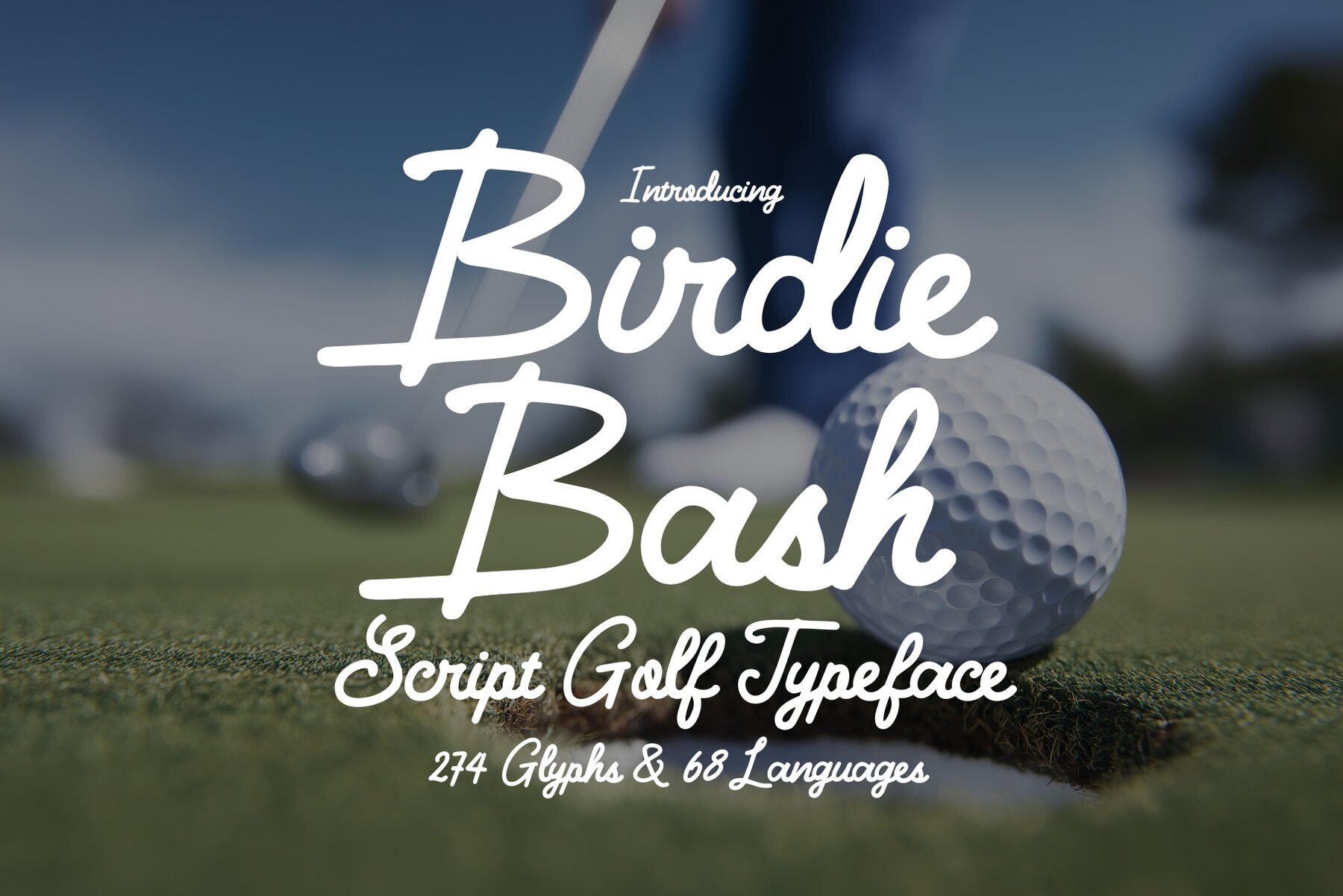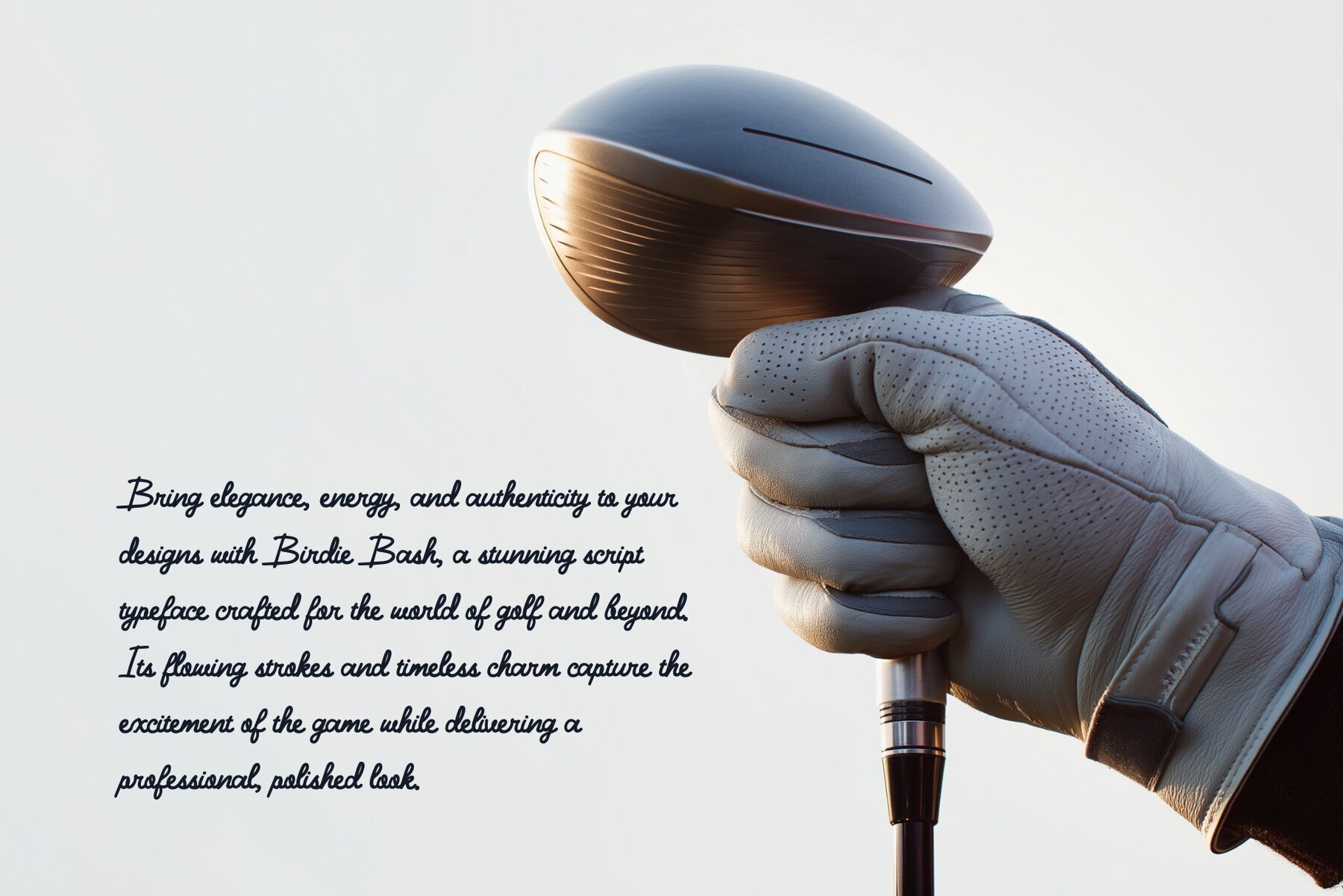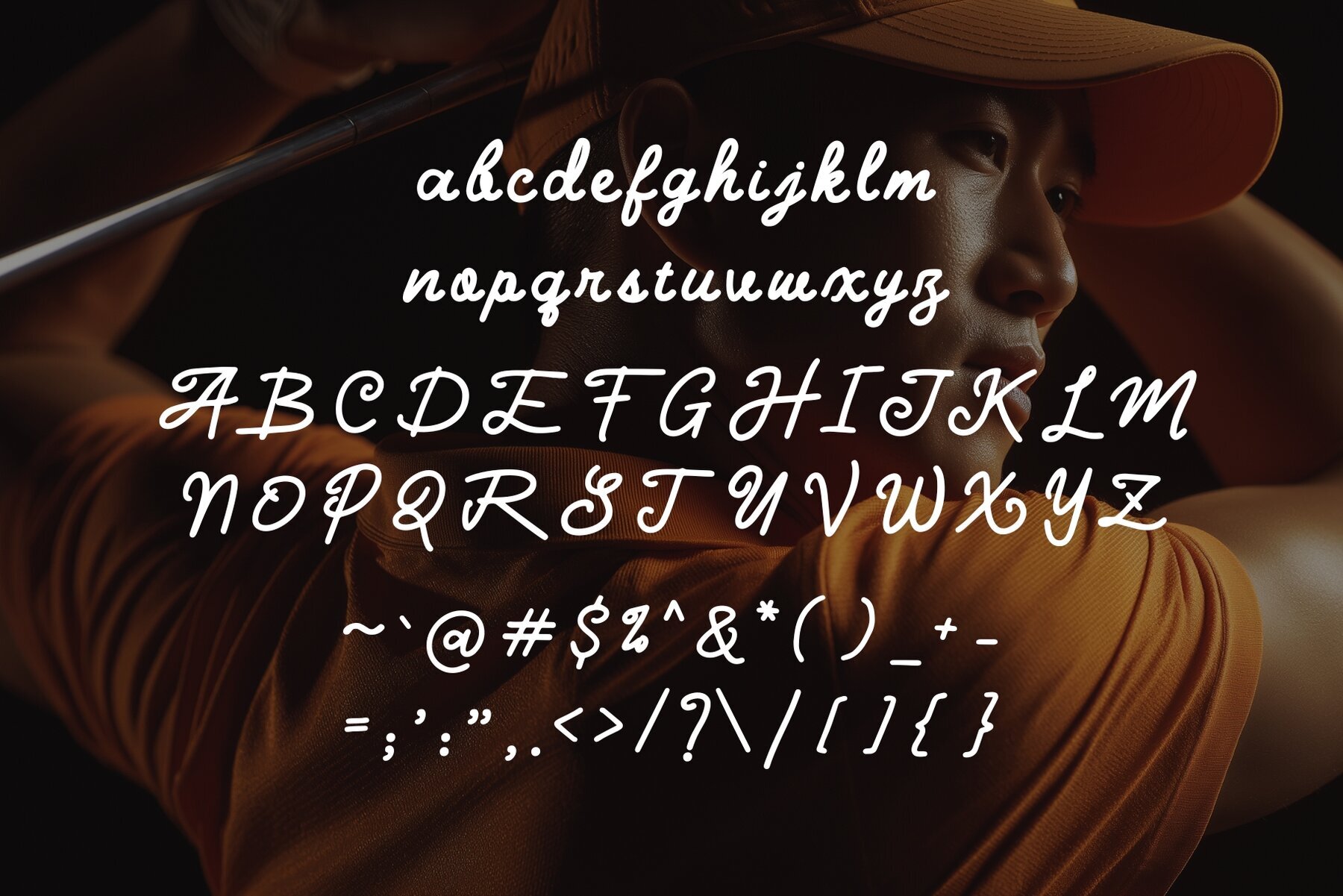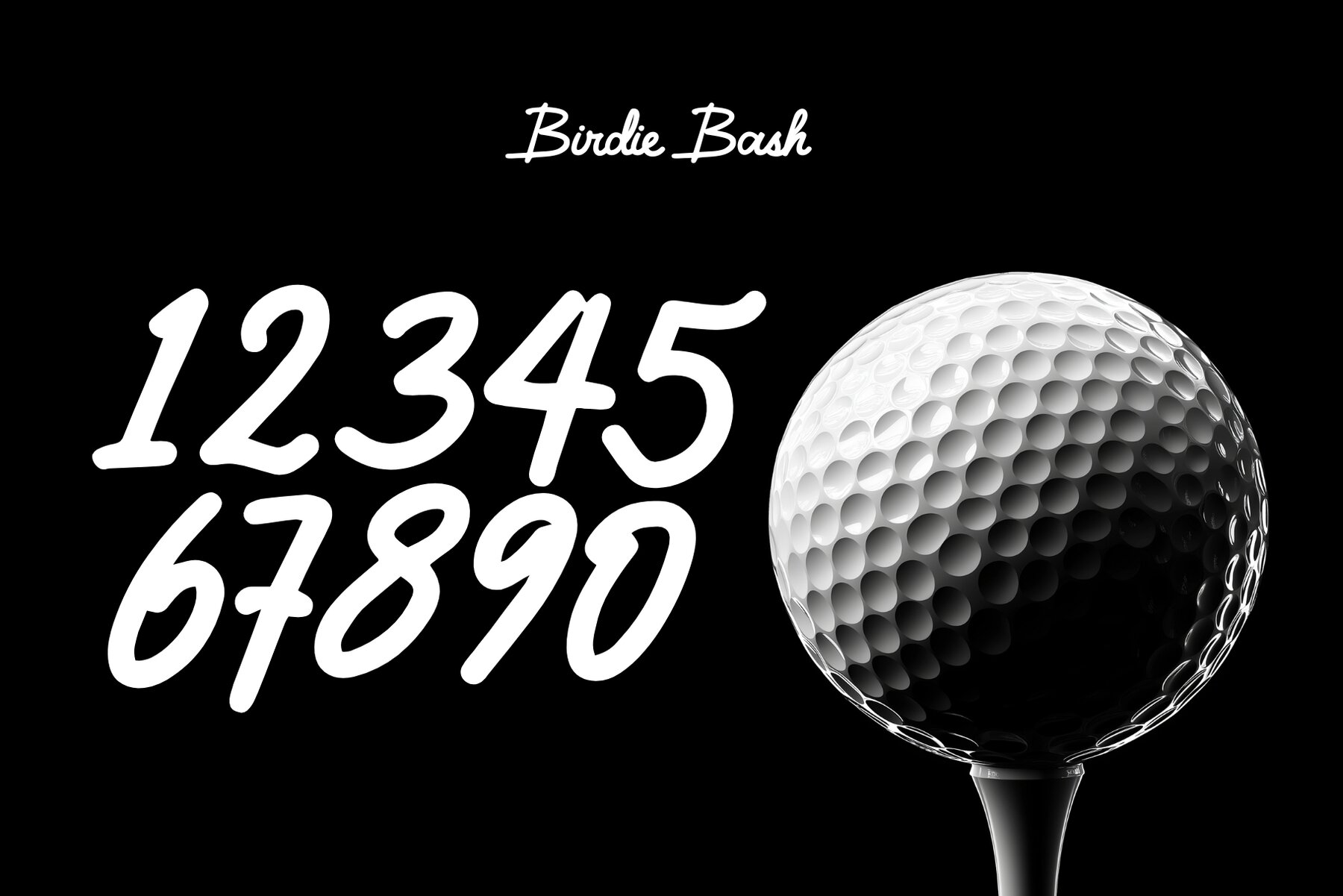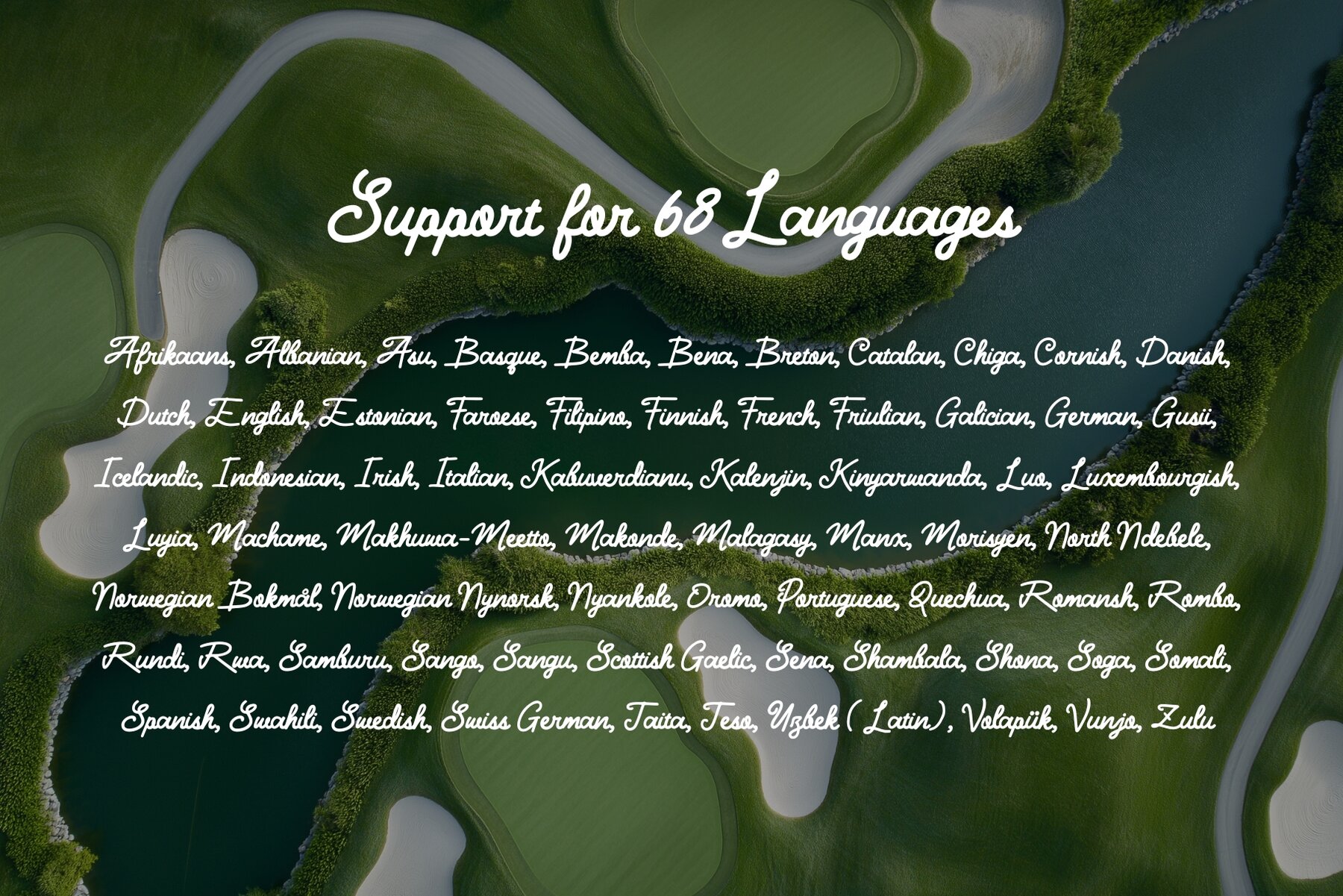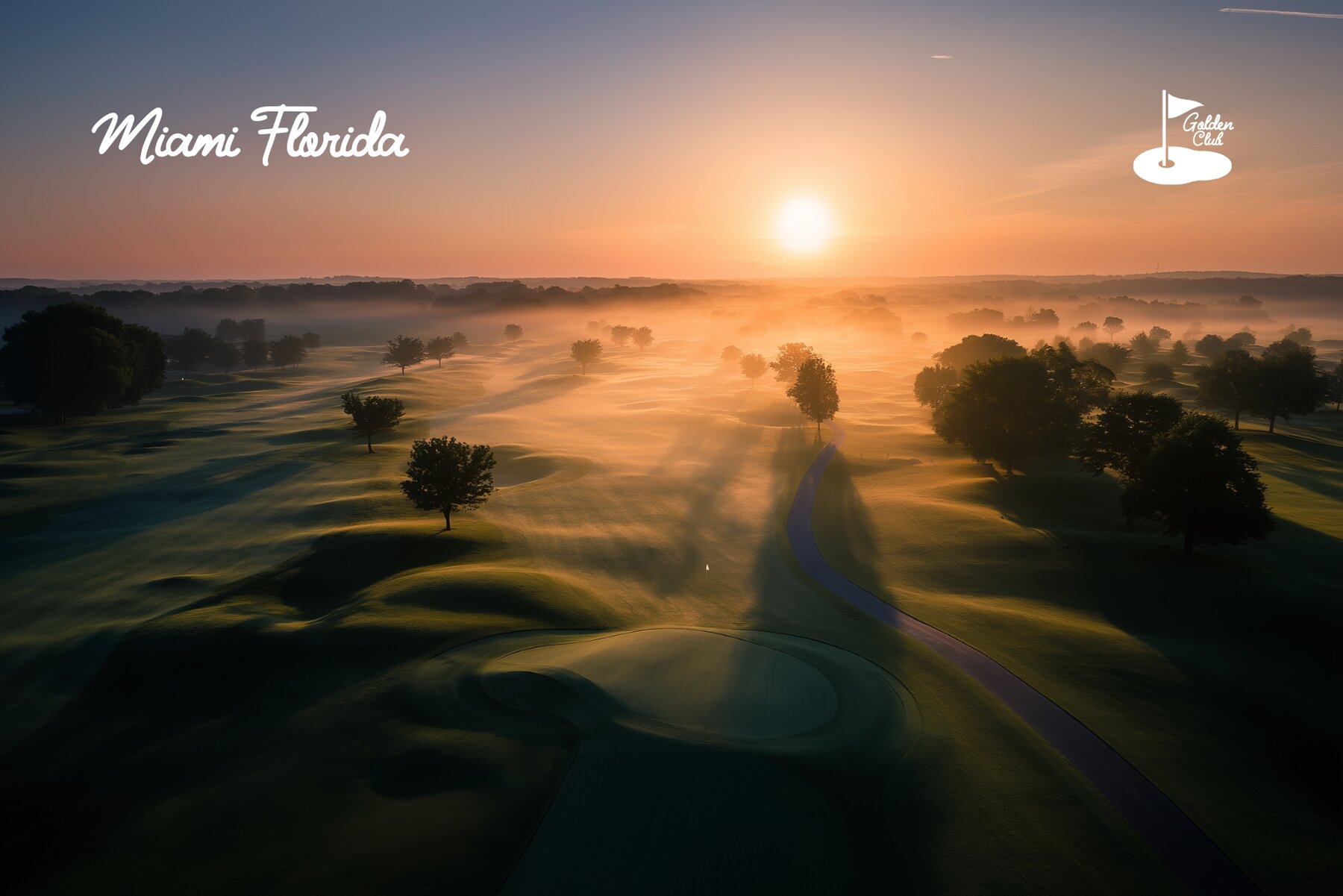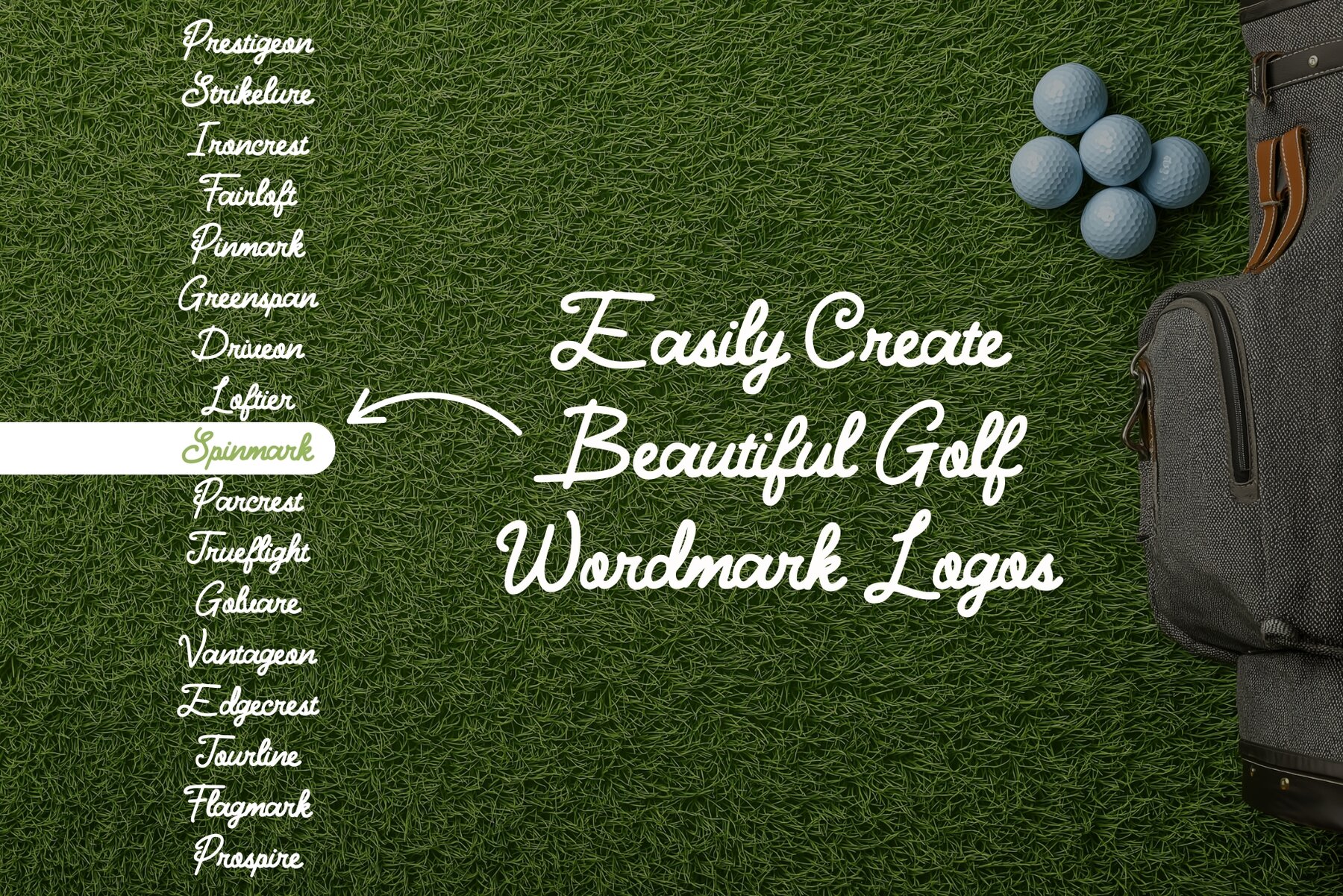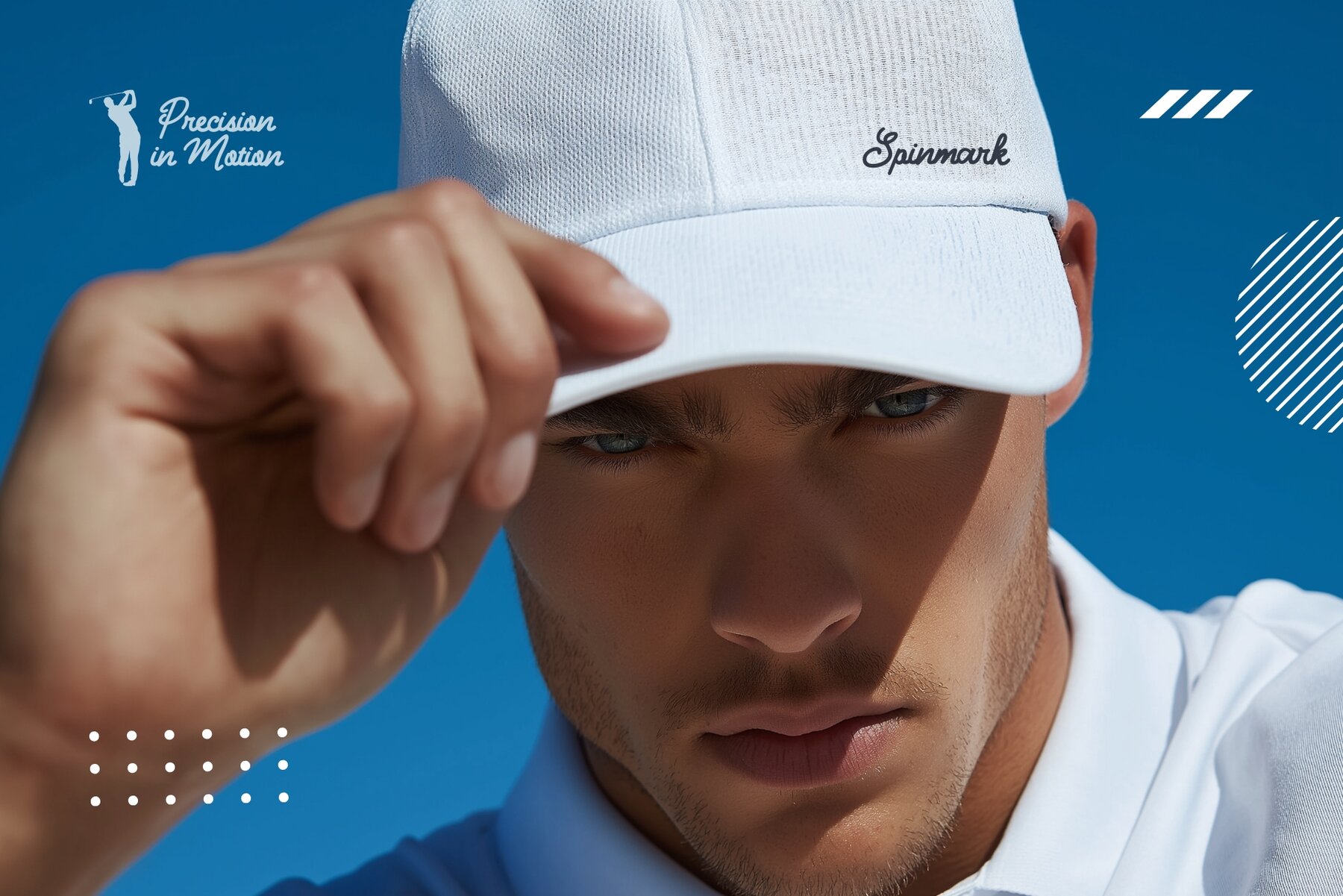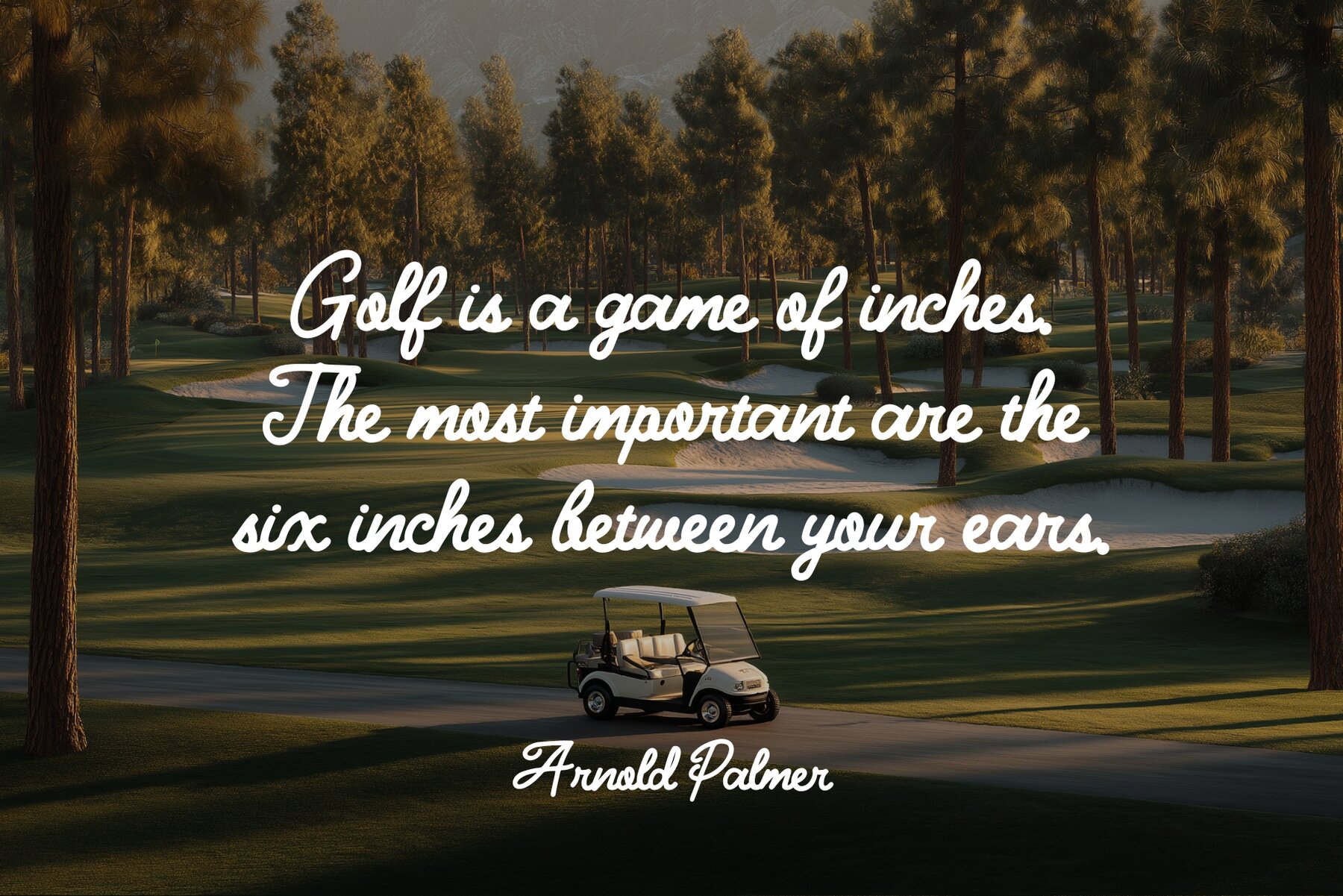
Birdie Bash Font
Birdie Bash Regular
Birdie Bash stands out as a script typeface shaped by the world of golf, offering elegance paired with expressive energy. Its flowing strokes and classic character reflect the excitement of the sport, while giving your projects a polished and professional touch. The personal, hand-crafted style and refined curves make this typeface ideal for applications where both sophistication and clarity matter. Bring a sense of distinction and energy to visual identities, campaign graphics, or branded collateral with Birdie Bash. Its adaptable style and professional finish offer designers a reliable choice for projects that demand style without compromising readability.Birdie Bash Script Typeface for Refined Visual Impact